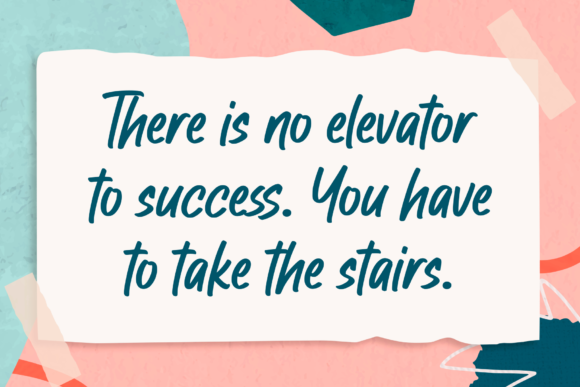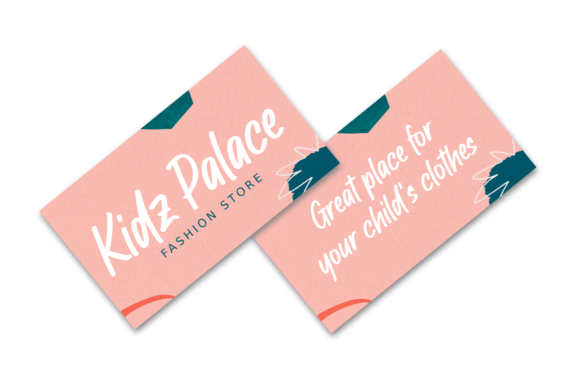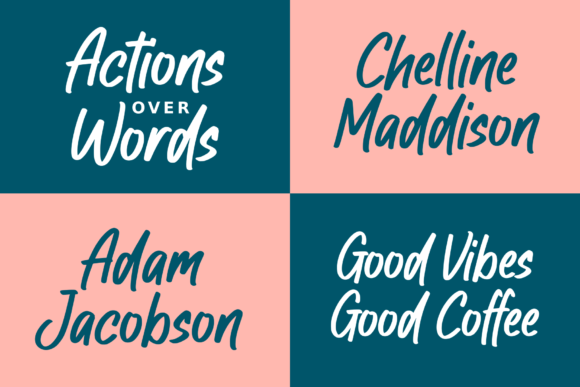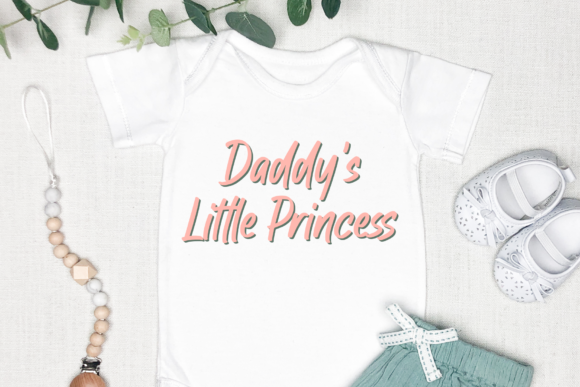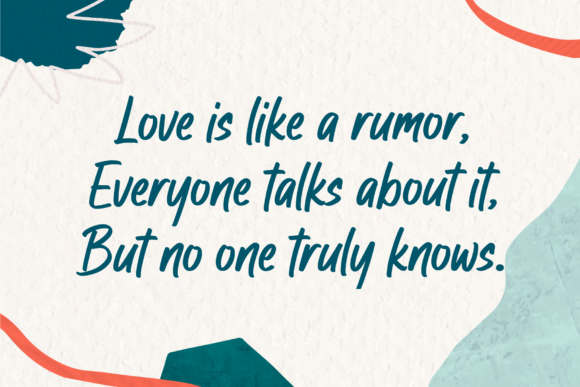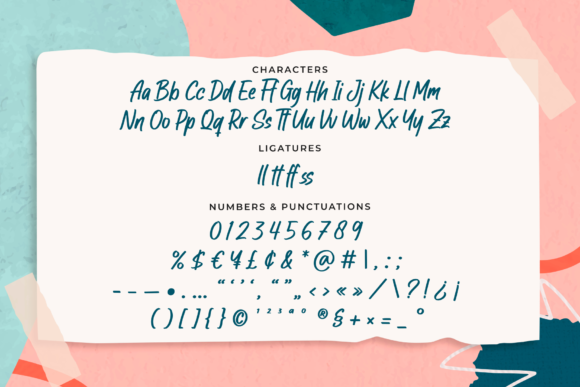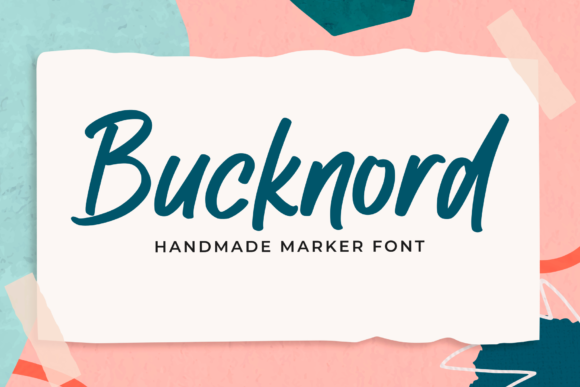
Introducing Bucknord Font: The Ultimate Handmade Marker Font for Creative Projects
Are you a designer, crafty enthusiast, or someone who loves to add a personal touch to their projects? Look no further than Bucknord Font, a cool and playful handmade marker font that’s perfect for a wide range of creative applications. In this article, we’ll dive into the features and benefits of Bucknord Font, and explore how it can elevate your designs and craft projects.
What is Bucknord Font?
Bucknord Font is a unique, handmade marker font that’s designed to bring a touch of personality and whimsy to your projects. With its playful, handwriting-like feel and ligatures, Bucknord Font is perfect for adding a personal touch to your designs. Whether you’re creating logos, product packaging, invitations, or social media graphics, Bucknord Font is the perfect choice.
Key Features of Bucknord Font
- Handmade with love: Bucknord Font is carefully crafted by hand, giving it a unique and personal feel that’s hard to replicate with digital fonts.
- Marker font: With its marker-like texture and feel, Bucknord Font adds a touch of playfulness and creativity to your designs.
- Ligatures: Bucknord Font comes with ligatures, which allow you to create beautiful, flowing connections between letters.
- Handwriting feels: The font’s handwriting-like feel makes it perfect for adding a personal touch to your designs.
What Can I Use Bucknord Font For?
Bucknord Font is incredibly versatile and can be used for a wide range of creative projects, including:
- Logos: Create unique and memorable logos for your business or brand.
- Product packaging: Add a personal touch to your product packaging and make it stand out on store shelves.
- Invitations: Create beautiful, one-of-a-kind invitations for special occasions.
- Branding: Use Bucknord Font to create consistent branding across all your marketing materials.
- Headlines: Add a touch of personality to your headlines and make them more engaging.
- Signage: Create eye-catching signage for your business or event.
- Labels: Add a personal touch to your labels and make them more memorable.
- Book covers: Create stunning book covers that will grab readers’ attention.
- Posters: Design beautiful posters that will make a lasting impression.
- Quotes: Add a touch of personality to your quotes and make them more inspiring.
Why Choose Bucknord Font?
With so many fonts available, why choose Bucknord Font? Here are just a few reasons:
- Unique and playful: Bucknord Font is a one-of-a-kind font that’s sure to add a touch of personality to your designs.
- High-quality: Bucknord Font is a high-quality font that’s designed to produce stunning results.
Bucknord Font is a unique and playful handmade marker font that’s perfect for designers, crafty enthusiasts, and anyone who loves to add a personal touch to their projects. With its ligatures, handwriting-like feel, and marker texture, Bucknord Font is sure to elevate your designs and craft projects. Whether you’re creating logos, product packaging, invitations, or social media graphics, Bucknord Font is the perfect choice. So why wait? Download Bucknord Font today and start adding a touch of personality to your designs!